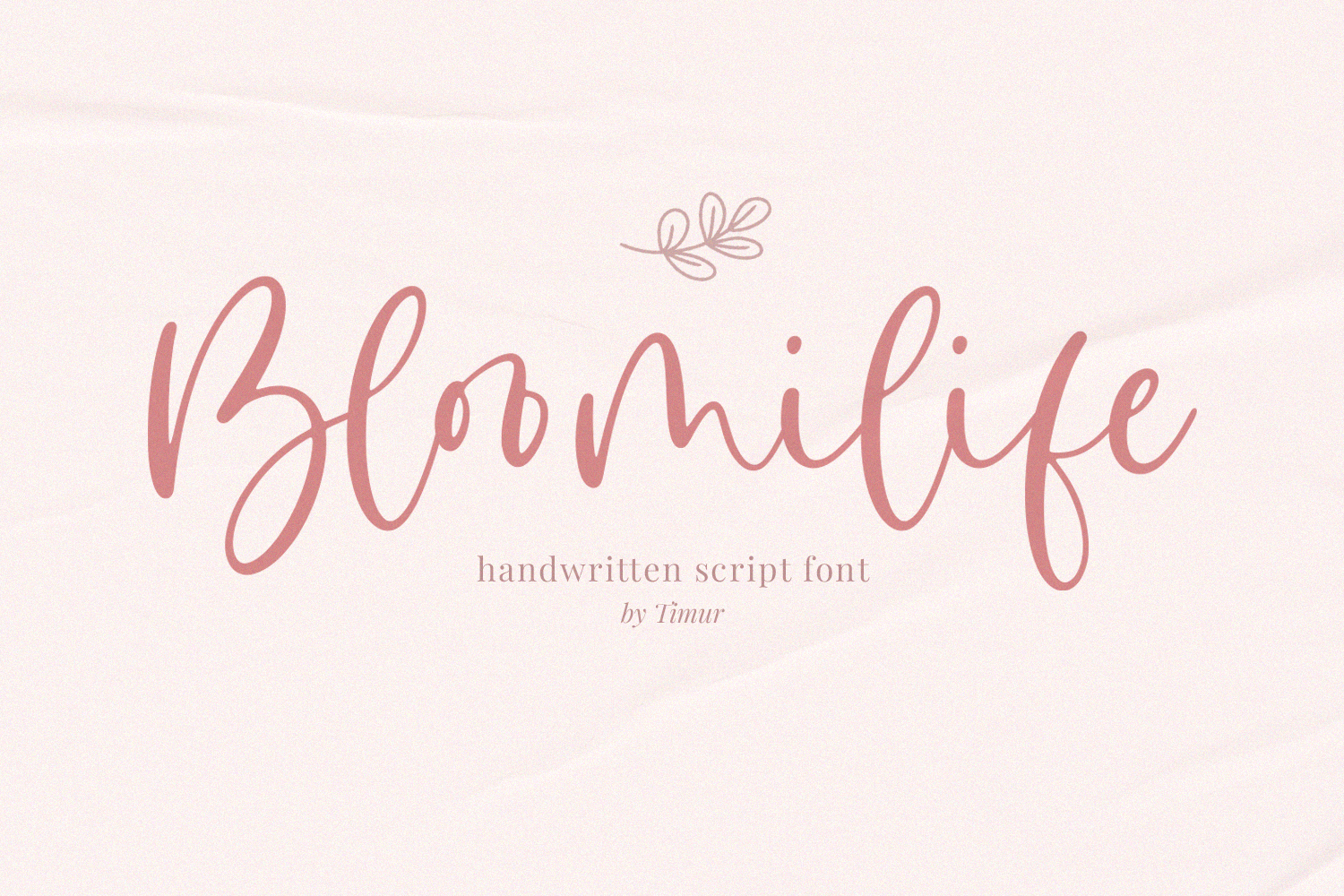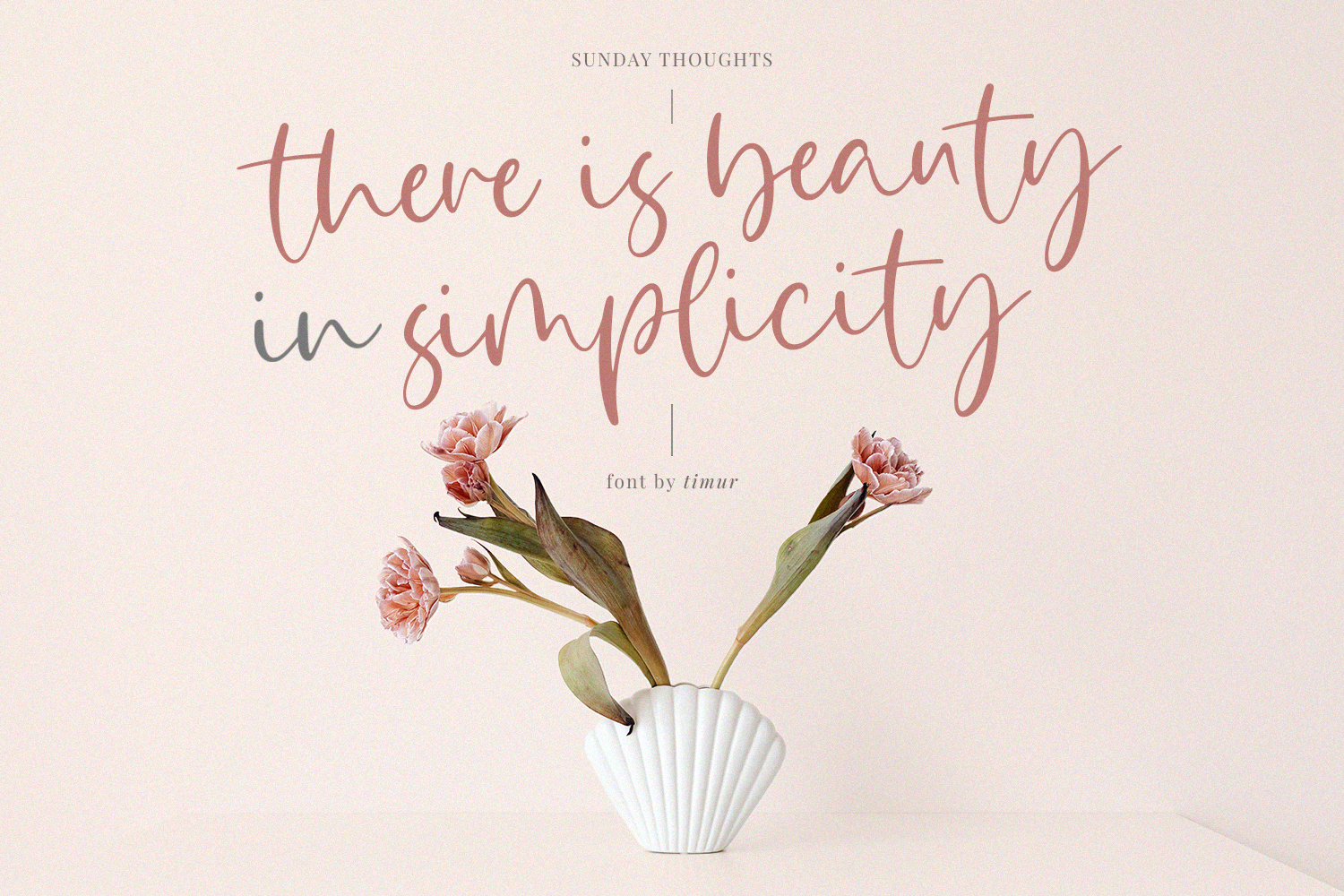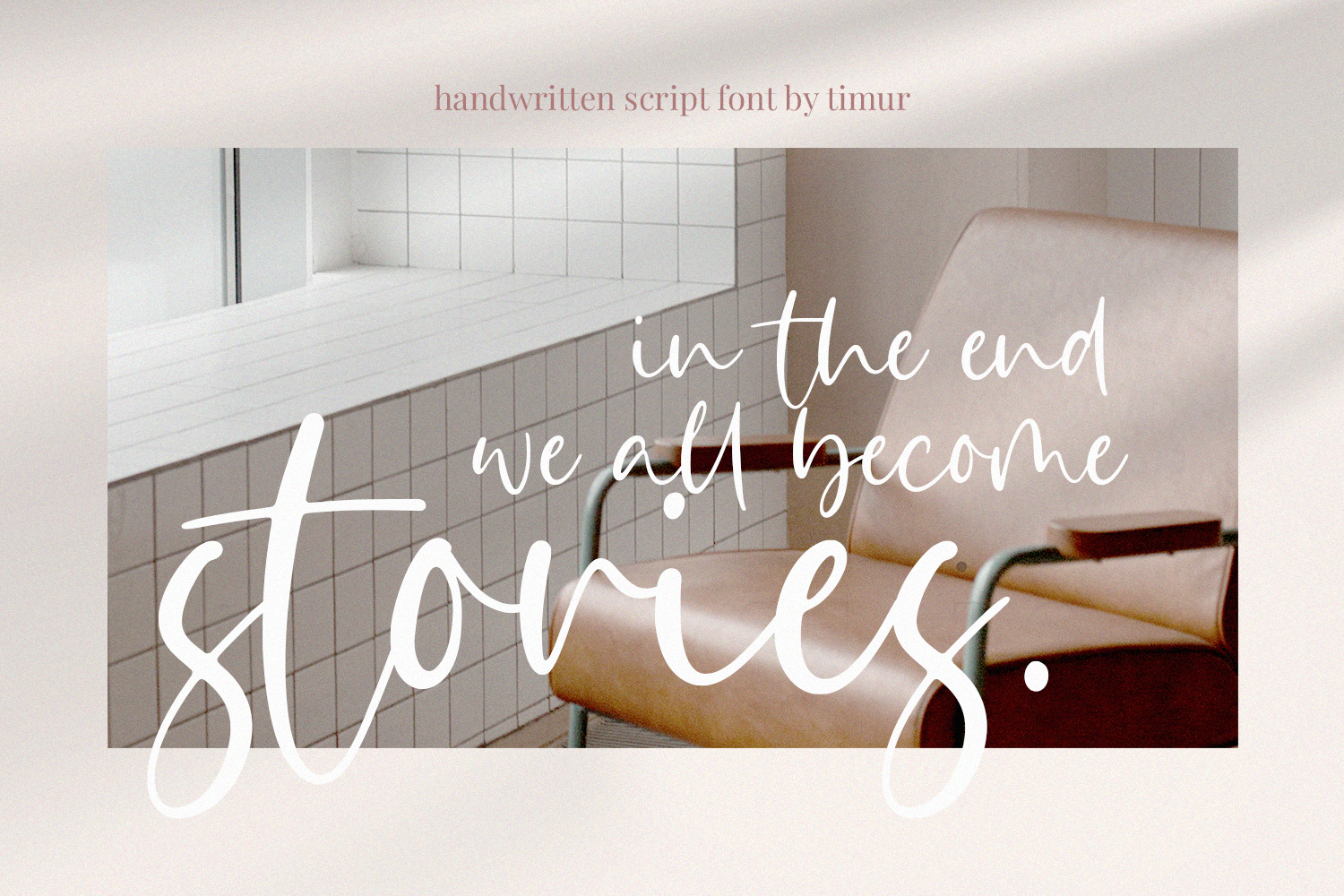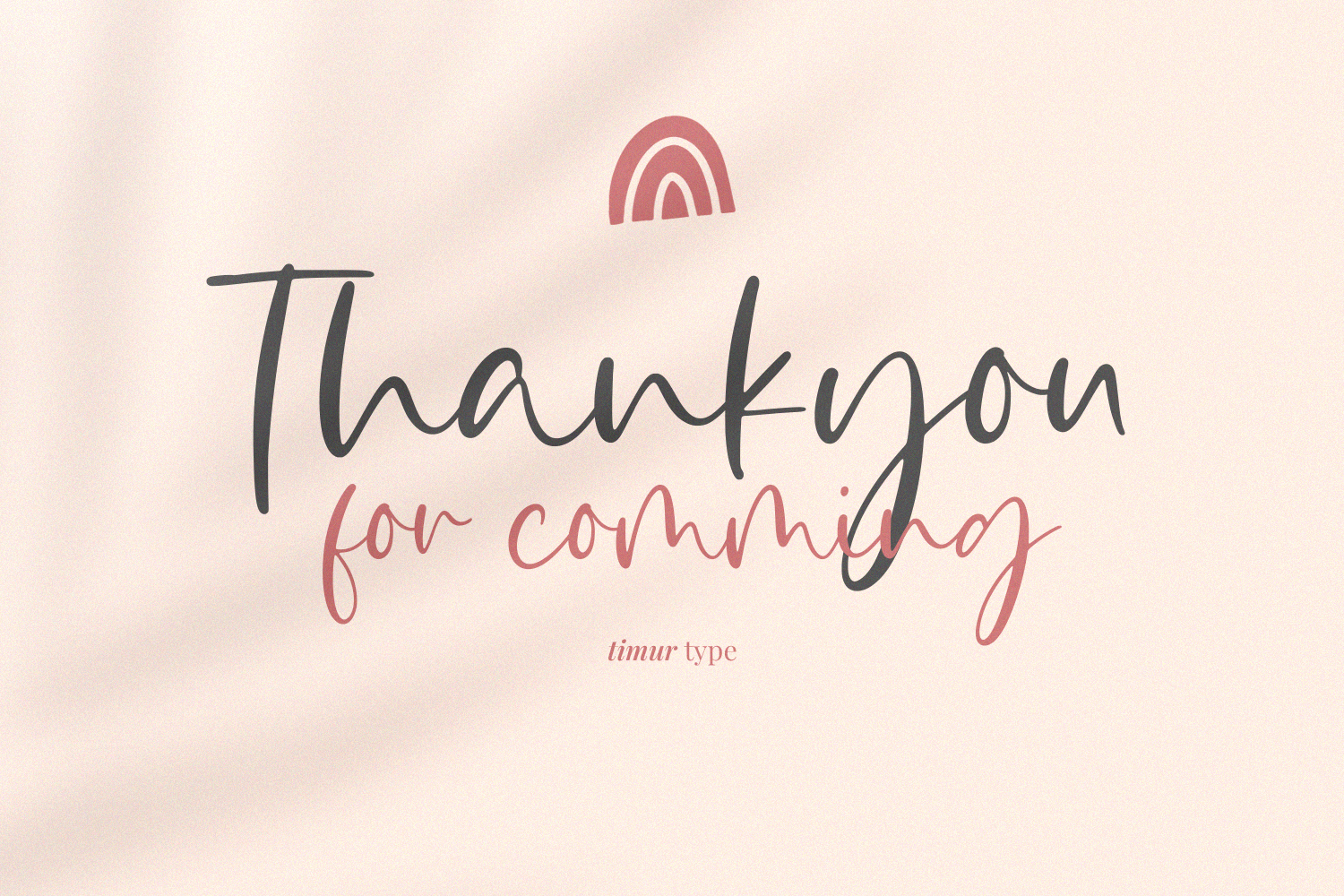
Bloomilife Font
Bloomilife Script Font is a dazzling script font. This font is neatly crafted and highly detailed. Whatever the topic, this font will be a wonderful asset to your font library, as it has the potential to enhance any creation.
Bloomilife is perfect for product packaging, branding project, megazine, social media, wedding, or just used to express words above the background.